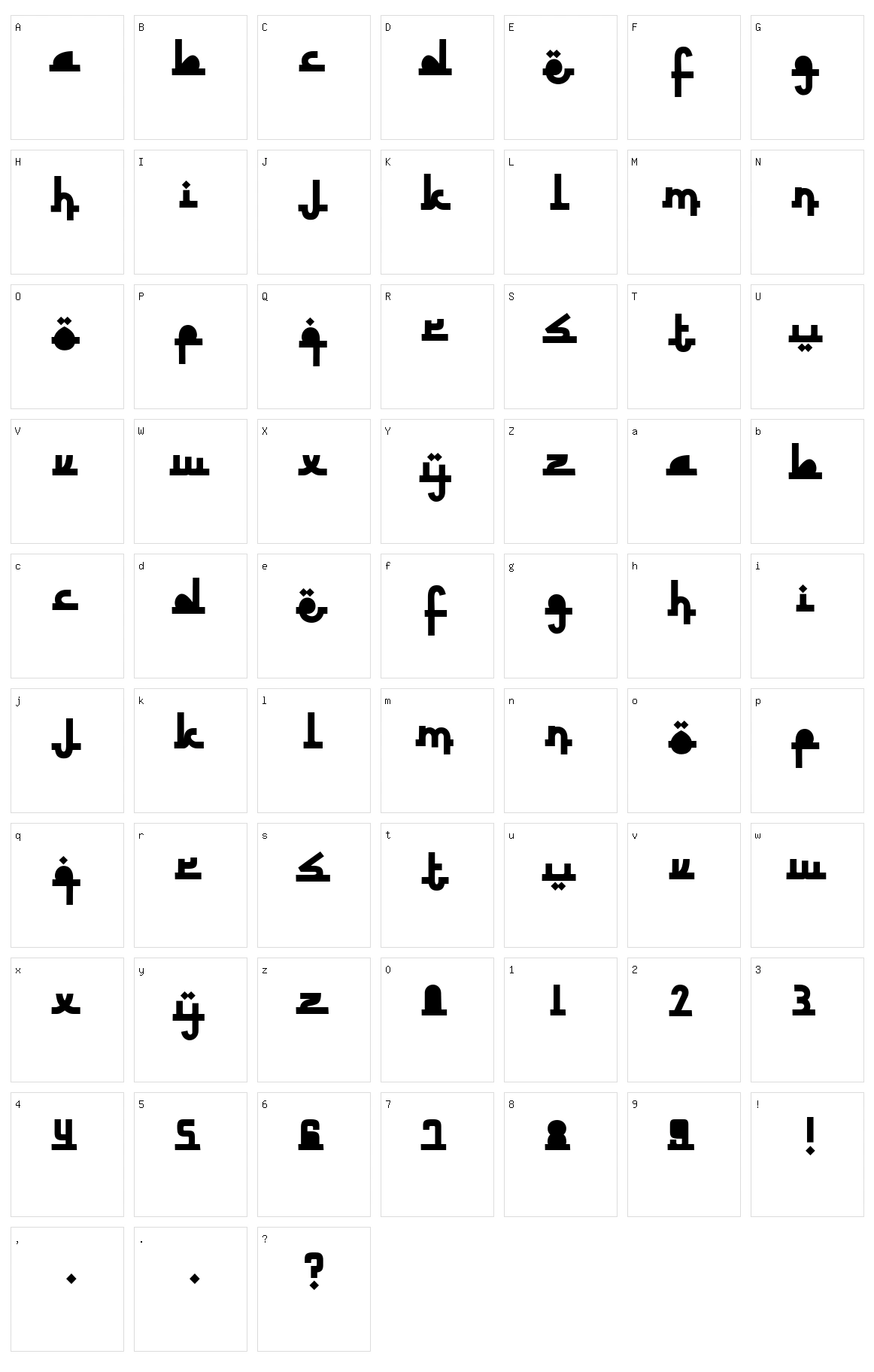
The free font Revolusi Timur Tengah is carefully designed by Adien Gunarta, showcasing a thoughtful balance of creativity and usability and falls under the Arabic font style. When you download the ZIP file, it contains only 7.43 KB of font files, making it lightweight and quick to download. Please review the license details below to understand permitted usage and distribution rights. If license information is not available, we recommend using this font for personal projects only or contacting the author directly for commercial usage permissions.